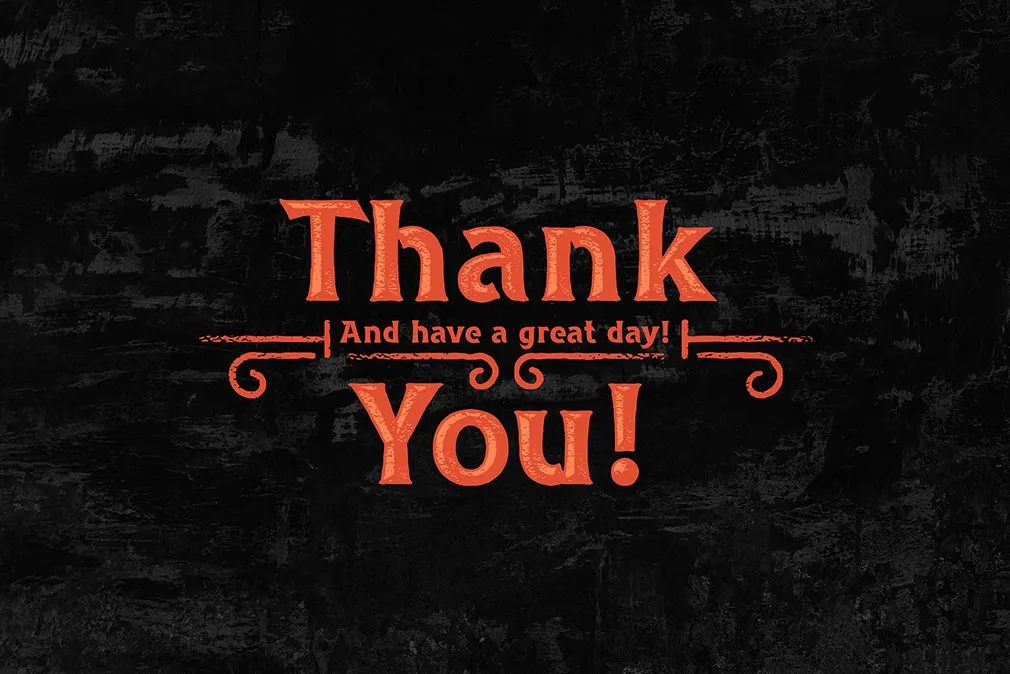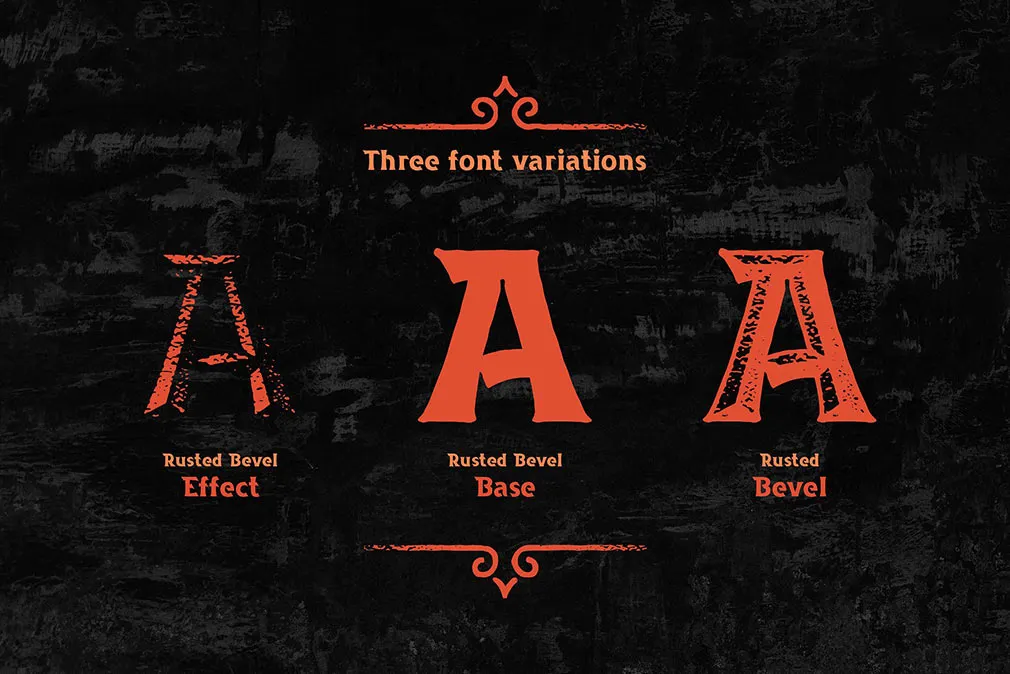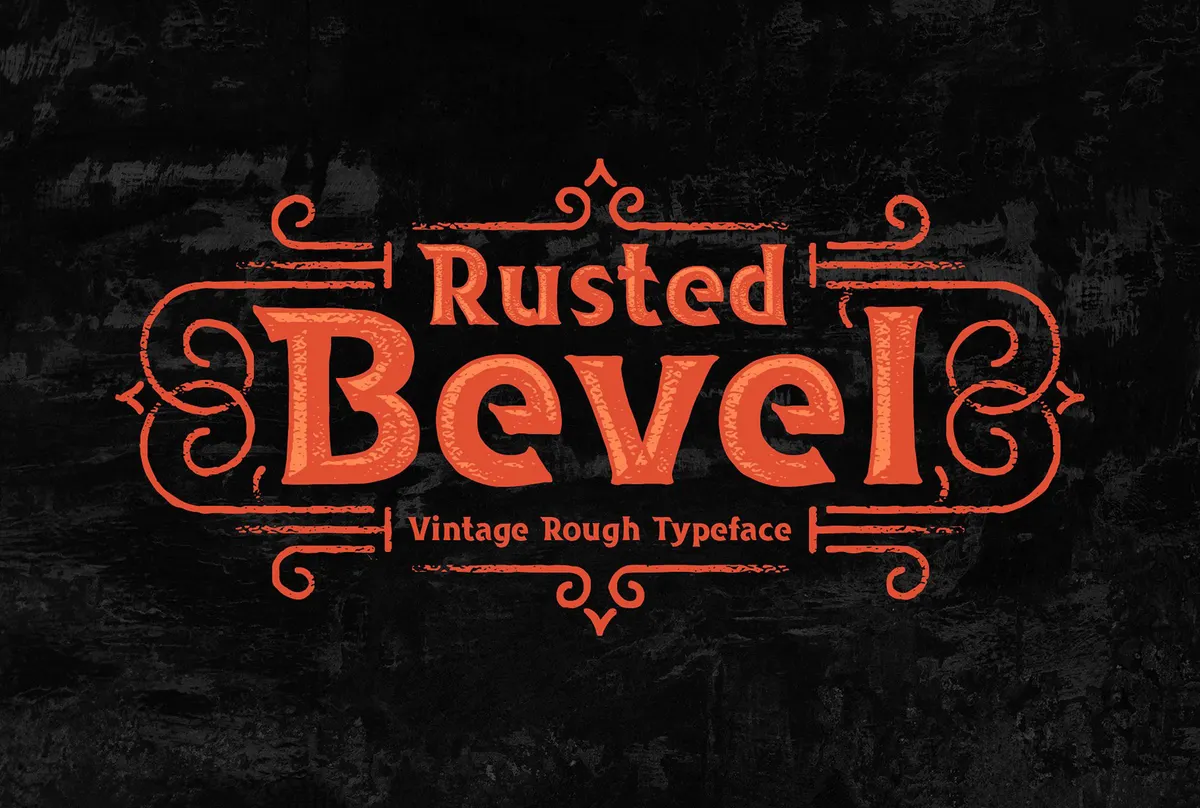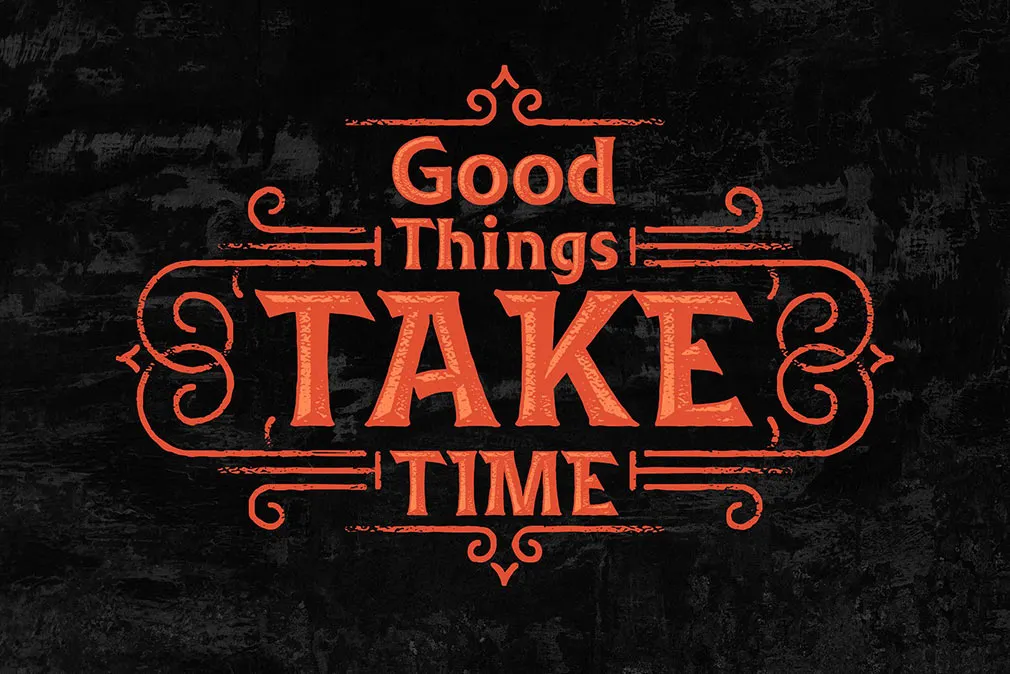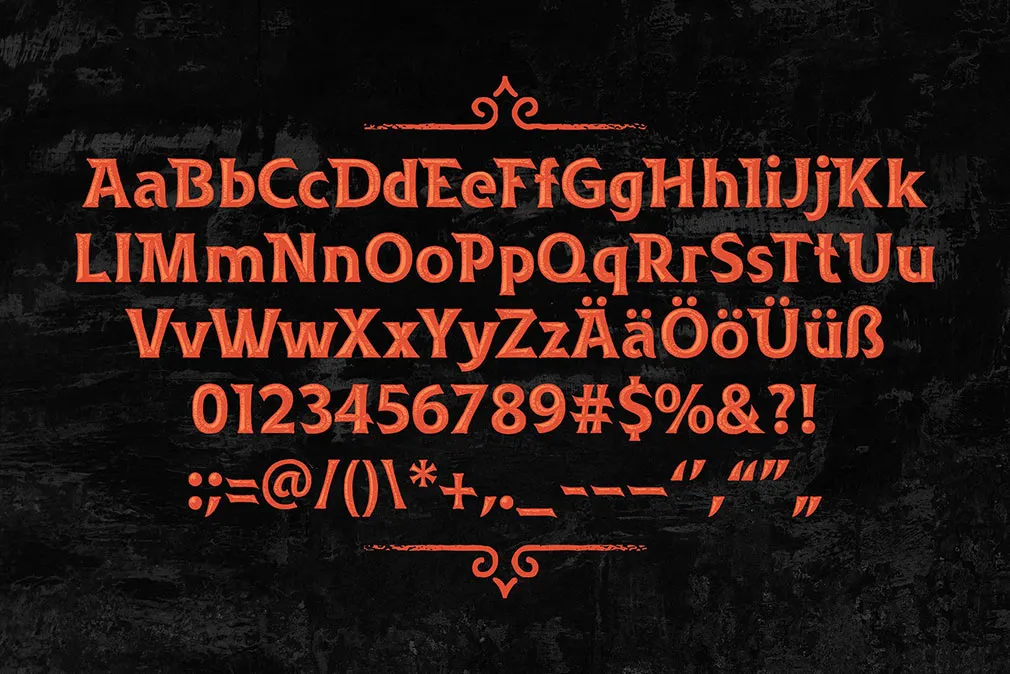
Rusted Bevel Vintage Typeface
Meet a typeface thats gonna make you absolutely impatient sure thing, who will be able to resist this super frank retro magnetism, embodied in the slab and serif fonts instead of one?
Graded from grande to plain, they may add the required twist to your project and may produce any effect you like: from passionate excitement to pure fascination, as well as fit any purpose. And the multilanguage support (accents) will make the thing run smoother. Still, want more for your home-crafted designs and client projects? Grab a vintage poster template with an ornate, combine it with Rusted Bevel or any other retro typeface and have an artwork that rocks!